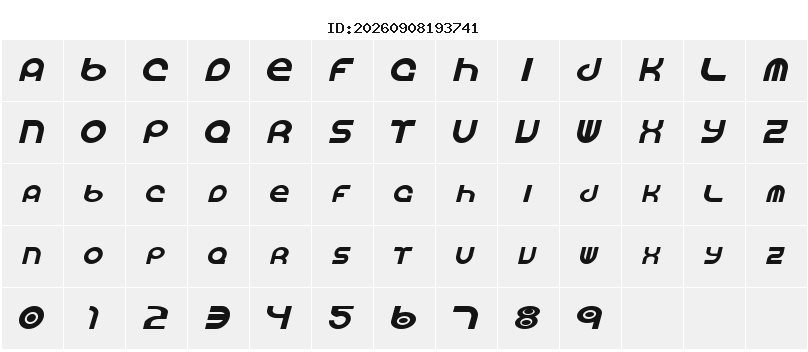
Vocaloid Preview
• Font Name: Vocaloid
• Font Style: Italique
• Designer: Rob Barba
• Manufacturer: Megami Studios
• Description: Vocaloid is a sleek, tech-style font ready for use in titles or specialty designs. Inspired by being exposed to anime one too many times, this font is sure to bring a unique look to any cyber, alien or tech appearance...or any use at all! If you do use it, drop me a line at rob@megamistudios.com. I'd like to see where it pops up!
Vocaloid.ttf is a modern, elegant sans-serif font designed for ultimate readability and visual harmony. Perfect for branding, headlines, web design, and print materials.